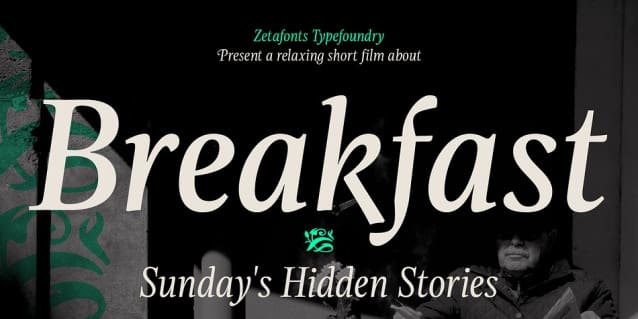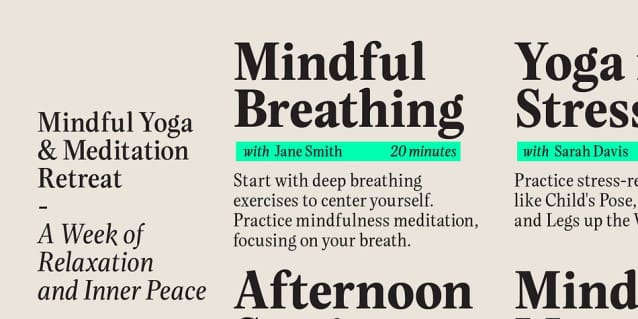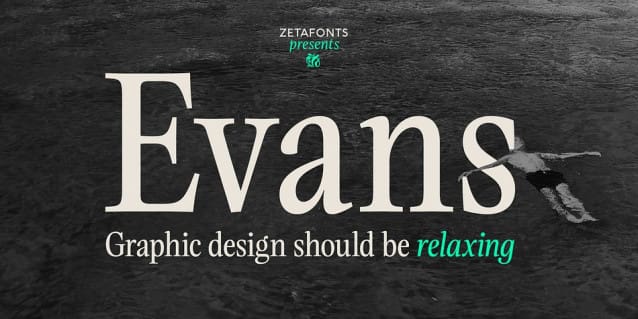
Evans Font Family
Evans Font Family, was named after Walker Evans, an american photojournalist whose photographs often featured unassuming subjects – ordinary people, roadside scenes, and the subtle details of the American landscape. His ability to find beauty in simplicity and appreciate the mundane inspired Cosimo Lorenzo Pancini and Andrea Tartarelli to create this typographic family that aims to convey the ideals of journalistic storytelling: simplicity, clarity, and unpretentious honesty.
Looking for a soothing, relaxed visual flow in body text, Evans Font was designed by gently narrowing classical proportions to answer the designers’ need of maximizing the arrangement of lengthy text within confined spaces. Combining the vintage appeal of a semi-condensed old-style structure with a very slight transitional slanted axis resulted in text-oriented typeface with visual charm on both printed and digital pages. Subtly reducing the size of majuscules allowed the effect of an increased x-height, balancing space saving with increased readability at same point size. Using soft, semi-calligraphic shapes and keeping a generous letter spacing, the designers embraced a minimalist approach, aiming at a smooth reading experience.
For maximum versatility, Evans Font provides two distinct variations tailored to different purposes: the Regular and the Narrow subfamilies. While both are fine-tuned for body text applications , the second is suited also for display-oriented contexts, where attention-grabbing headlines take center stage. Each subfamily is developed in a range of 8 weights from Extralight to Heavy, and includes over 700 glyphs with full coverage of language using extened latin glyphs. True italics are designed for all weights, providing additional typographic control through the design of Swash Alternates, available through Open Type features that also include Standard and Discretionary Ligatures, Positional Numerals, Case Sensitive Forms and Stylistic Alternates. The family is complemented also by a rich set of Ornaments, available both as special glyphs or in a separate font.
With its retro-inspired design and unwavering commitment to form and function, Evans effortlessly extends its versatility from editorial design to digital interfaces and logo creation, inviting users to appreciate the beauty in simplicity, find joy in the ordinary, and embrace a relaxed and unhurried mindset.